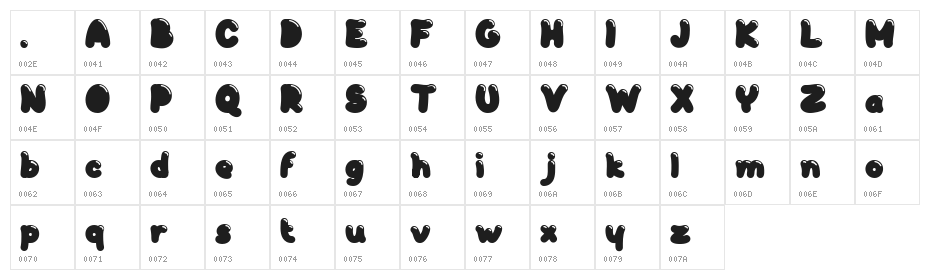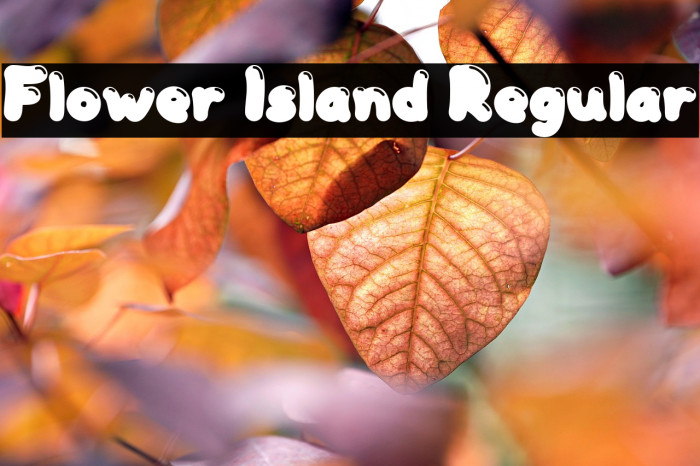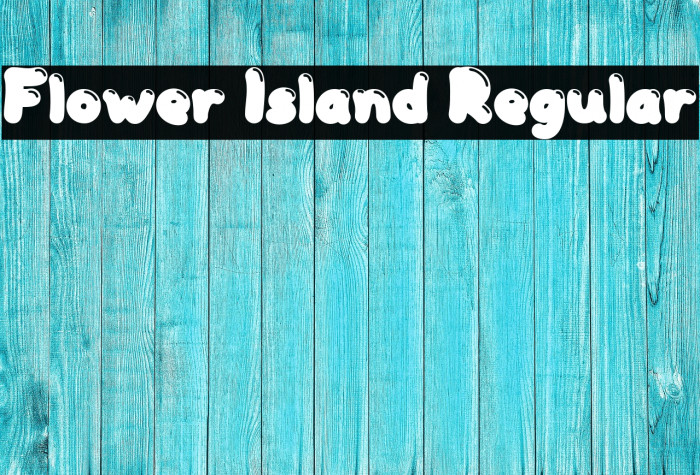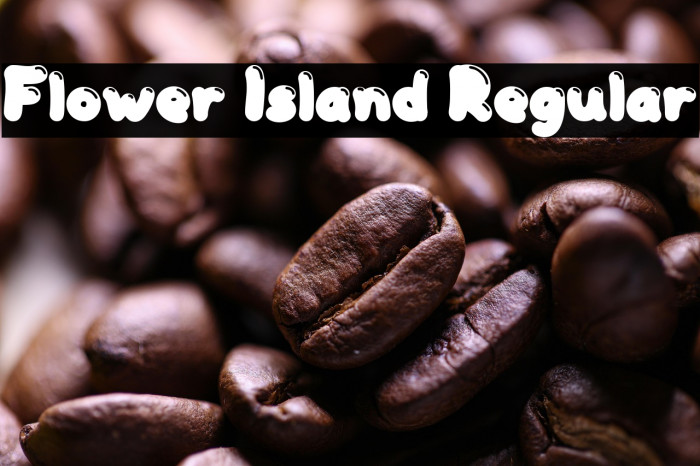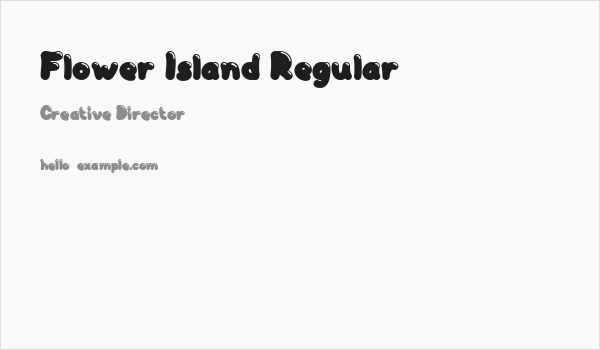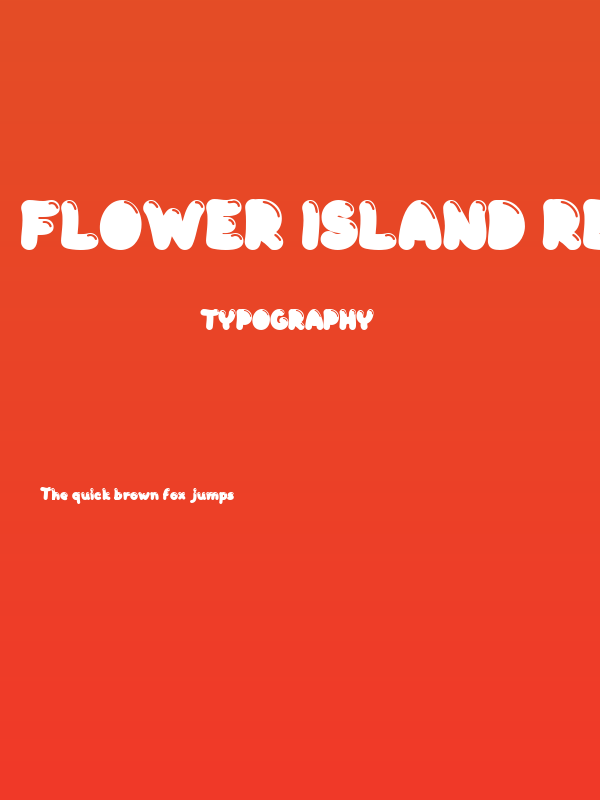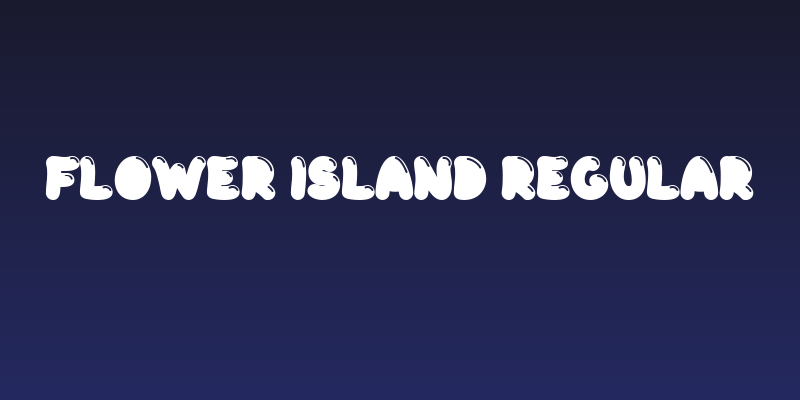
Flower Island Regular Font
Flower Island Regular Description
This playful and bold font features rounded, bubble-like characters that exude a sense of fun and whimsy. The letters are thick and substantial, with a smooth, glossy appearance that makes them stand out. The font's unique style is characterized by its soft curves and exaggerated proportions, giving it a friendly and approachable feel. It is perfect for projects that aim to convey a sense of joy and creativity, making it ideal for children's books, playful branding, or any design that requires a touch of lightheartedness.